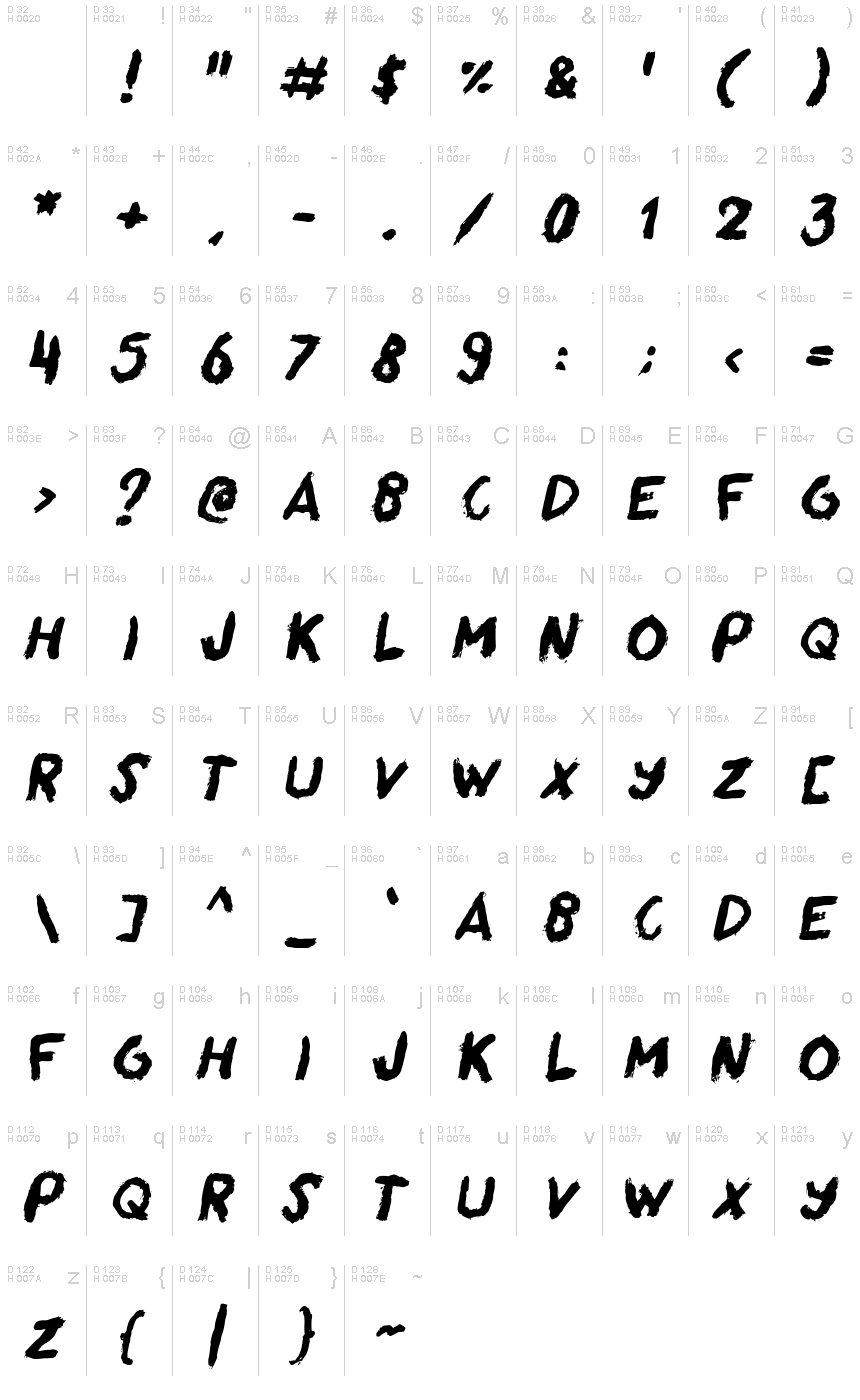
Pinzelan Italic font, part of the Pinzelan family and designed by GGBotNet, exudes a dynamic and expressive brush style that captivates the eye. Its bold appearance commands attention, while the fluid strokes effortlessly convey an artistic flair. Each letter dances across the page with an engaging rhythm, making it perfect for projects requiring a touch of creativity and individuality.
The Pinzelan Italic shines in design contexts such as branding, event promotions, or artful headlines that aim to leave a lasting impression. Its powerful character pairs beautifully with vibrant backgrounds or minimalist designs alike, ensuring versatility across various media. Whether used in digital graphics or printed materials, this font encapsulates a free-spirited essence that resonates with audiences seeking something truly distinctive.